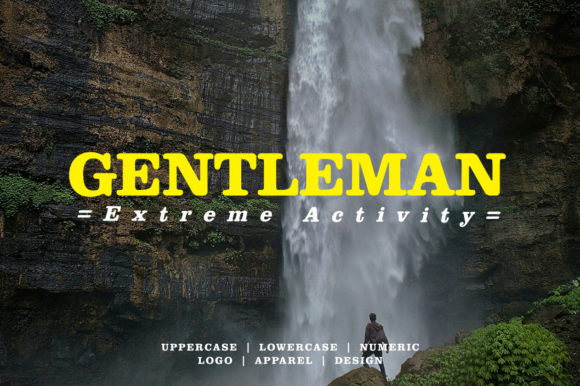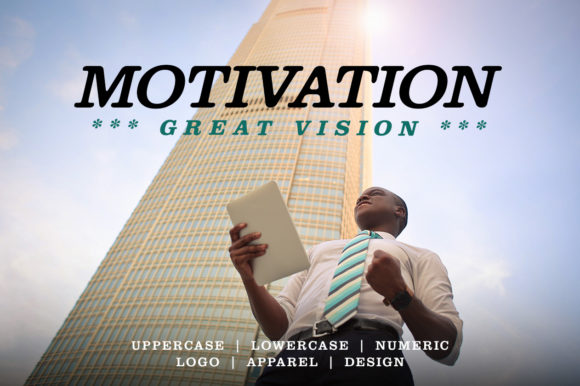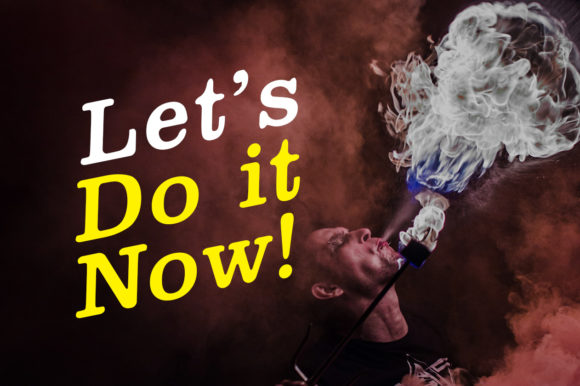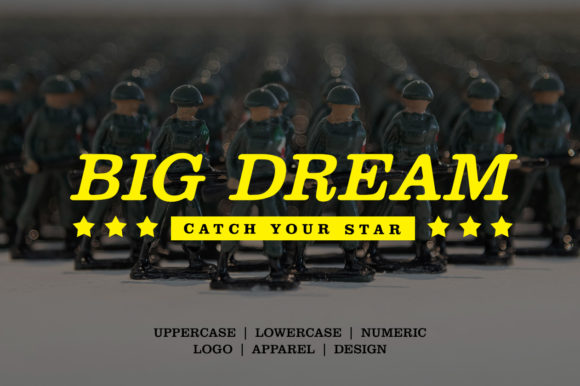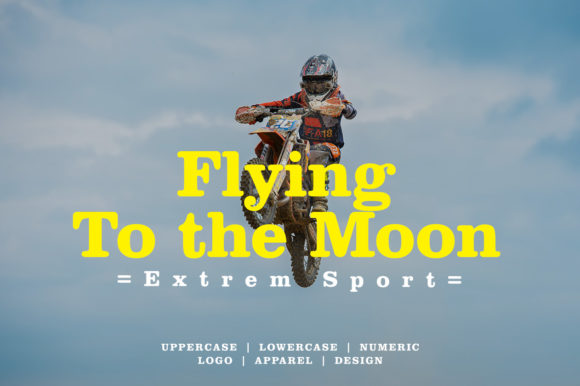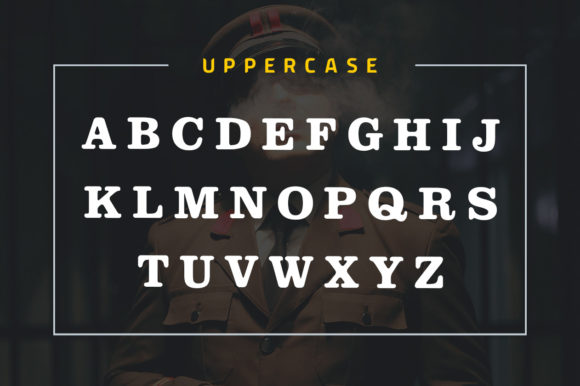
Introduction to Officer Mans Font
Officer Mans is a natural and authentic serif font.
It can be used for various purposes such as logos, wedding invitations, headings, t-shirts, letterhead, signage, labels, news, posters, badges and so much more .
Key Features of Officer Mans Font